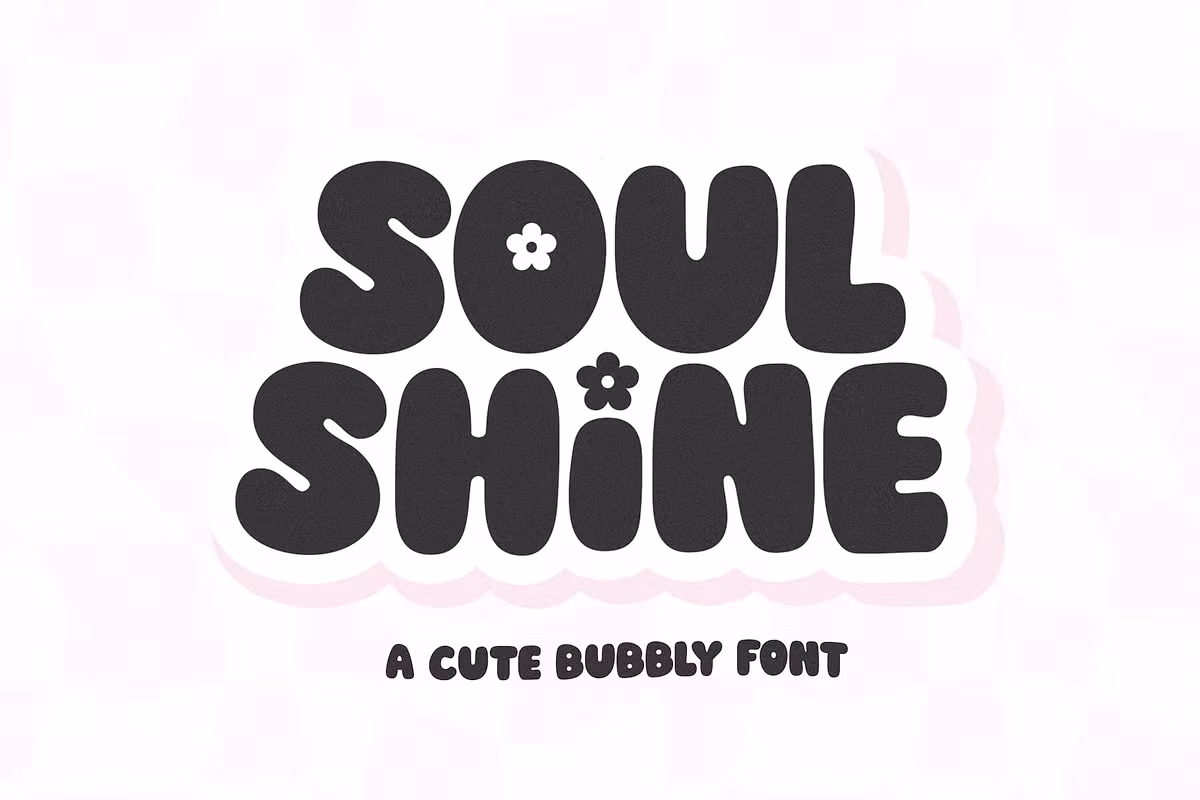
Soul Shine | Bubbly Retro Font Free Download
Soul Shine | Bubbly Retro Font Free Download is a playful and groovy typeface inspired by the bold, bubbly styles of the ’60s and ’70s. With its thick curves, soft edges, and vibrant personality, this font is perfect for retro posters, funky branding, album covers, social media graphics, and vintage-style merch.
Packed with positivity and nostalgic charm, Soul Shine | Bubbly Retro Font Free Download adds a cheerful vibe to any design. It’s ideal for creators looking to channel a carefree, feel-good aesthetic with standout letterforms that radiate energy and fun.